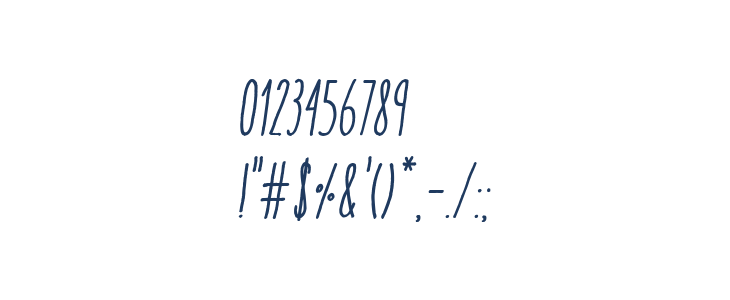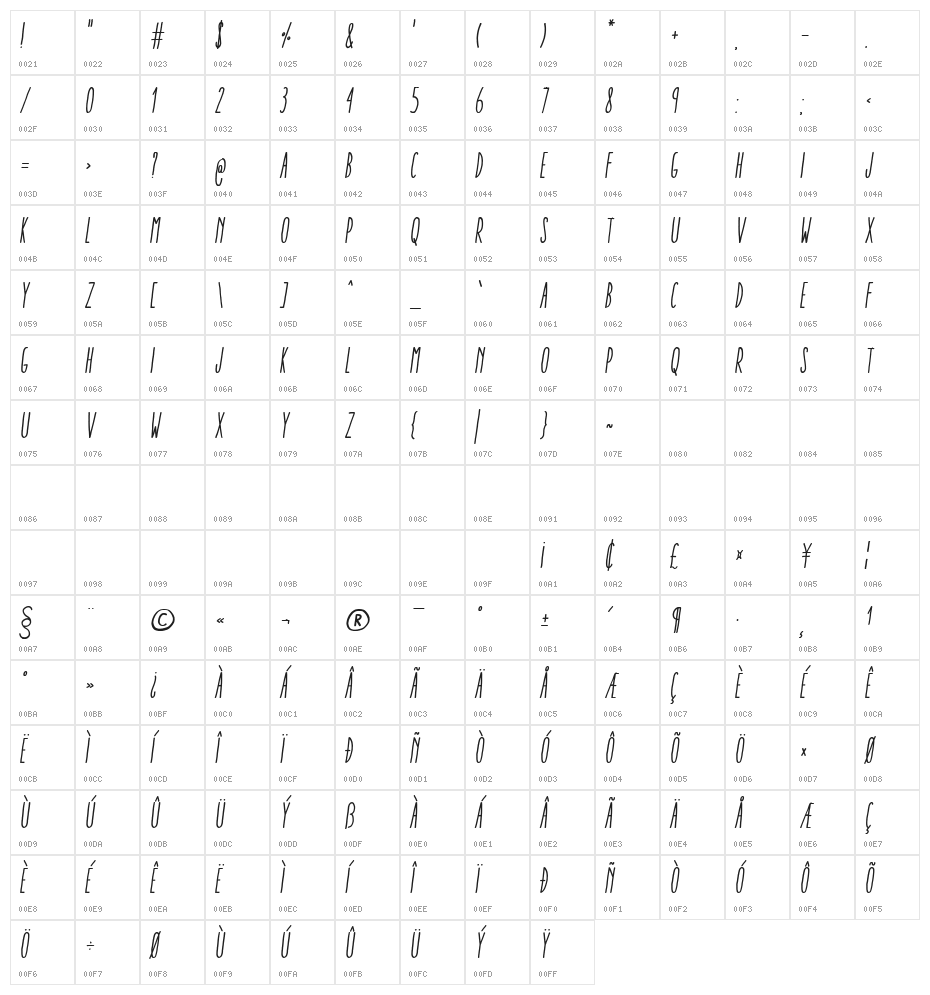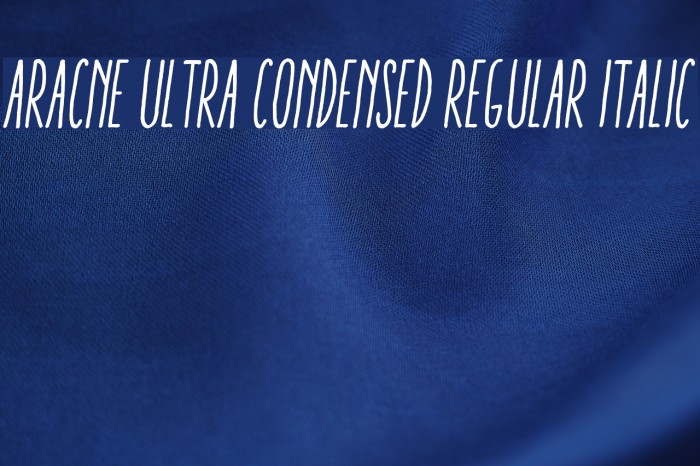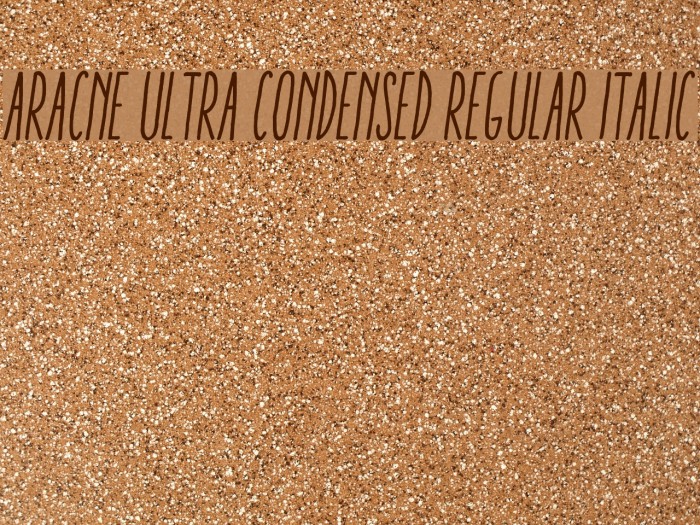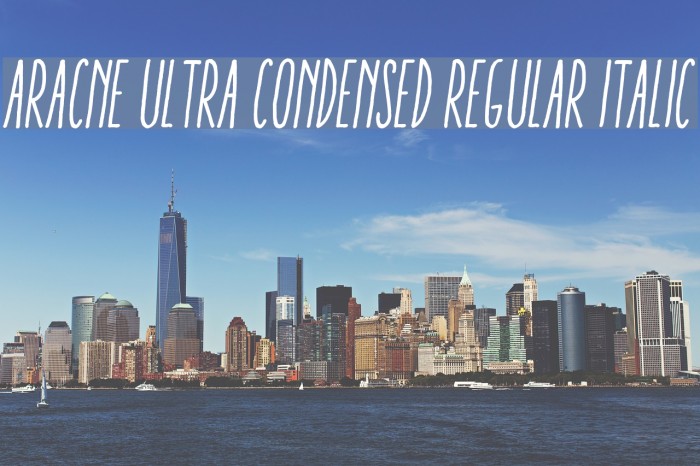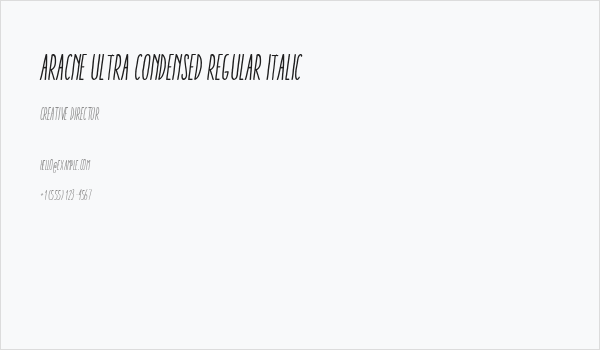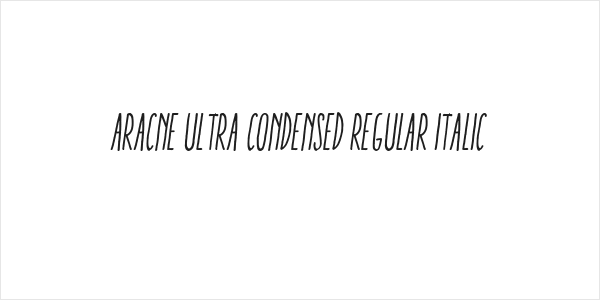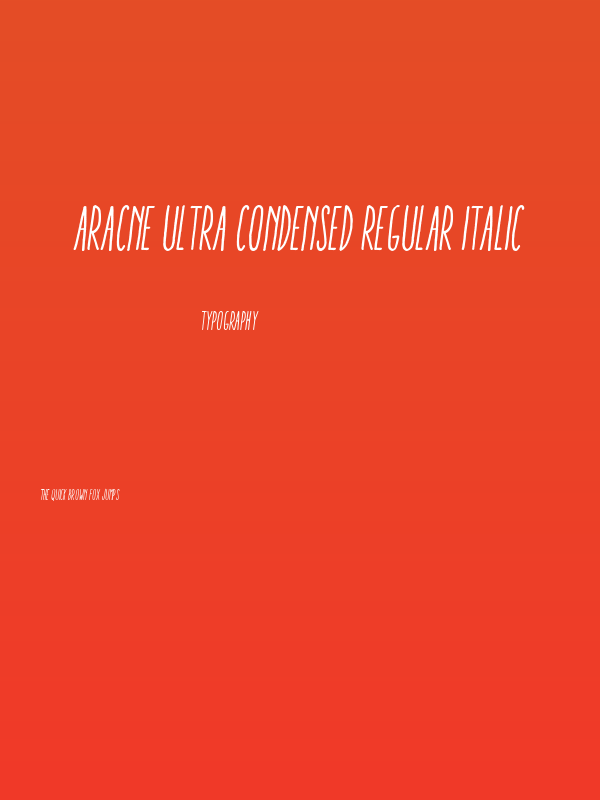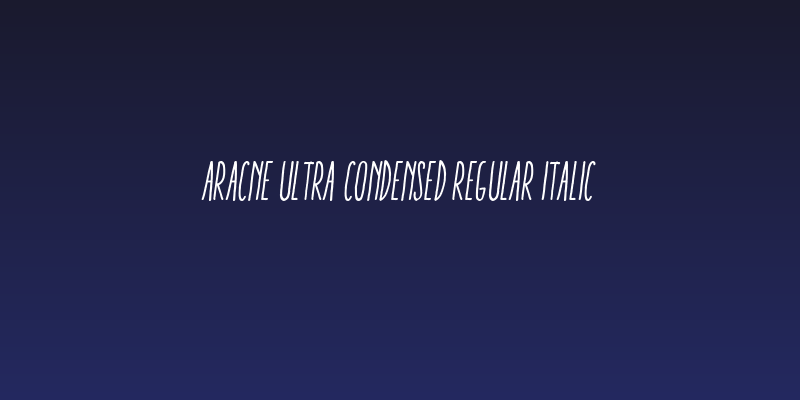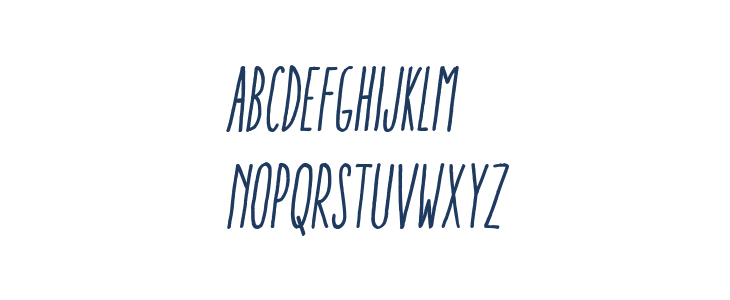
Aracne Ultra Condensed Regular Italic Font
Aracne Ultra Condensed Regular Italic Description
This font features an ultra-condensed style with a distinct italic slant, giving it a dynamic and energetic appearance. The characters are elongated and narrow, creating a sleek and modern look. The strokes are consistent in width, providing a uniform and clean aesthetic. The font includes both uppercase and lowercase letters, numerals, and a variety of special characters, making it versatile for different uses. Its condensed nature allows for efficient use of space, making it ideal for headlines and titles where space is limited.
| Proposed Projects | Ideal for magazine headlines, posters, modern branding, and any design requiring a stylish and space-efficient typeface. |